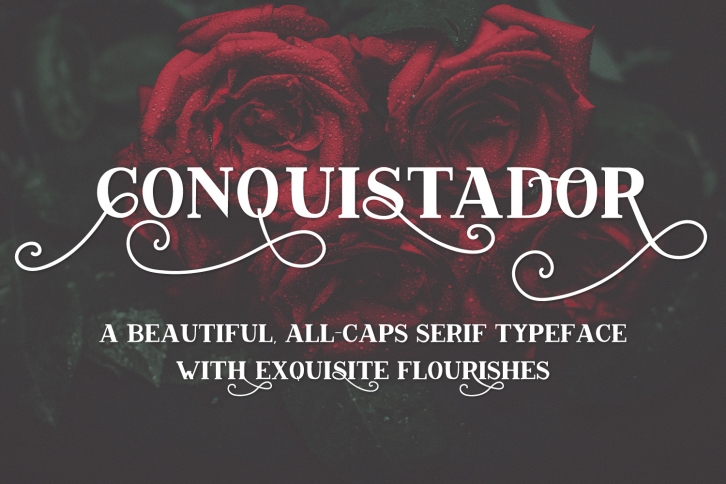
Conquistador Serif is a trendy and unique font with an authentic style. It was designed by BeckMcCormick and it's a great choice for creative people who need such a font. It was released on October 1, 2017 and the file size is 1.32 MB. Conquistador Serif will add an organic vibe to any design idea!